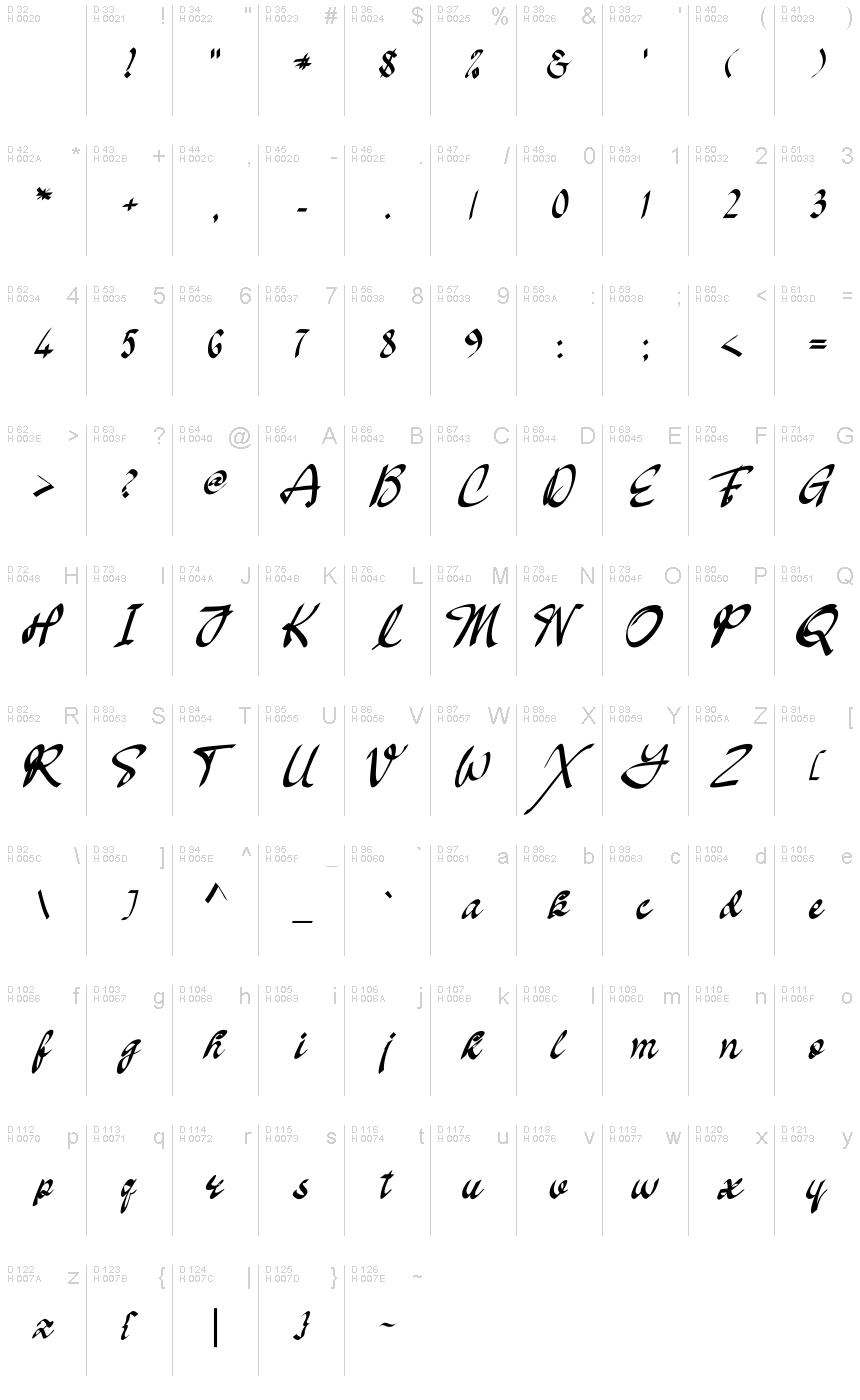
Oakland
Oakland is an expressive and dynamic font that commands attention. Its bold, brush-like strokes convey a sense of movement and energy, lending a modern and sophisticated edge to any design. The striking contrast between the thick and thin lines creates visual interest, while the flowing curves and organic shapes lend a touch of elegance and artistry.
This font shines in a variety of applications, from branding and logos to editorial layouts and packaging design. Its versatility allows it to seamlessly transition between formal and casual settings, making it a valuable asset for designers seeking to add a touch of personality and flair to their work.